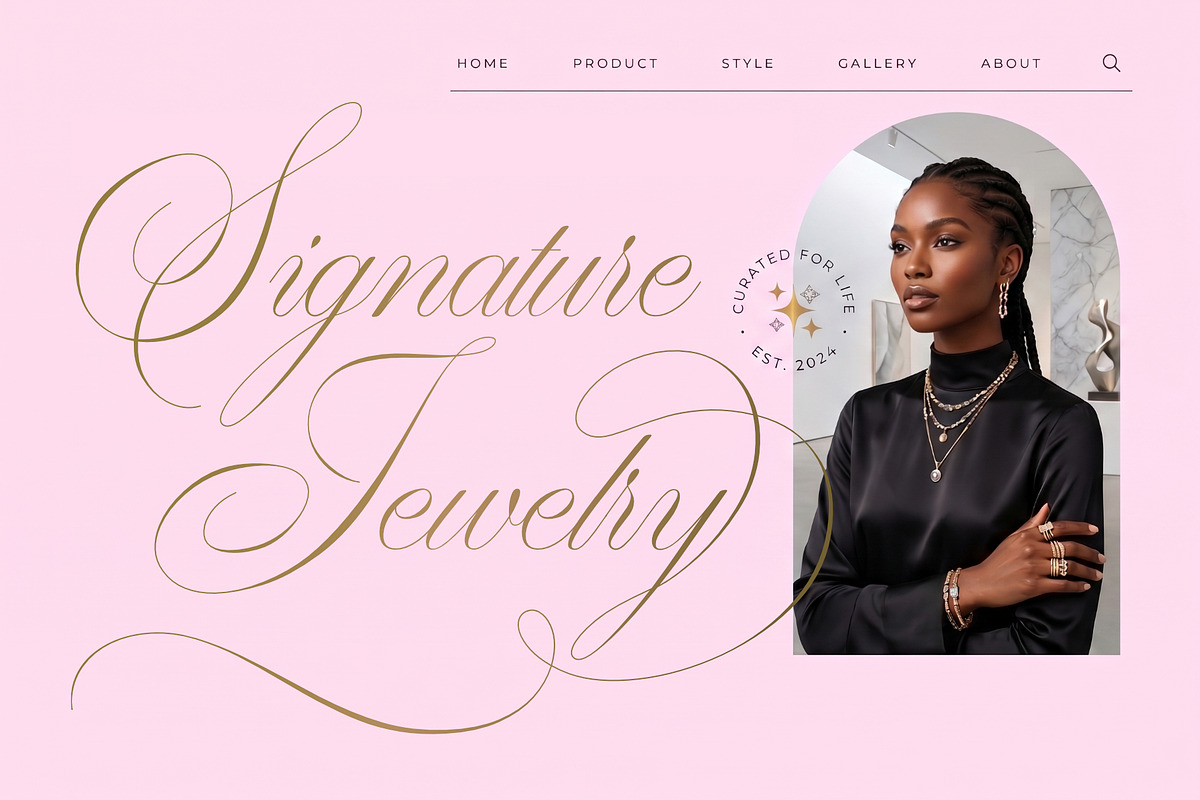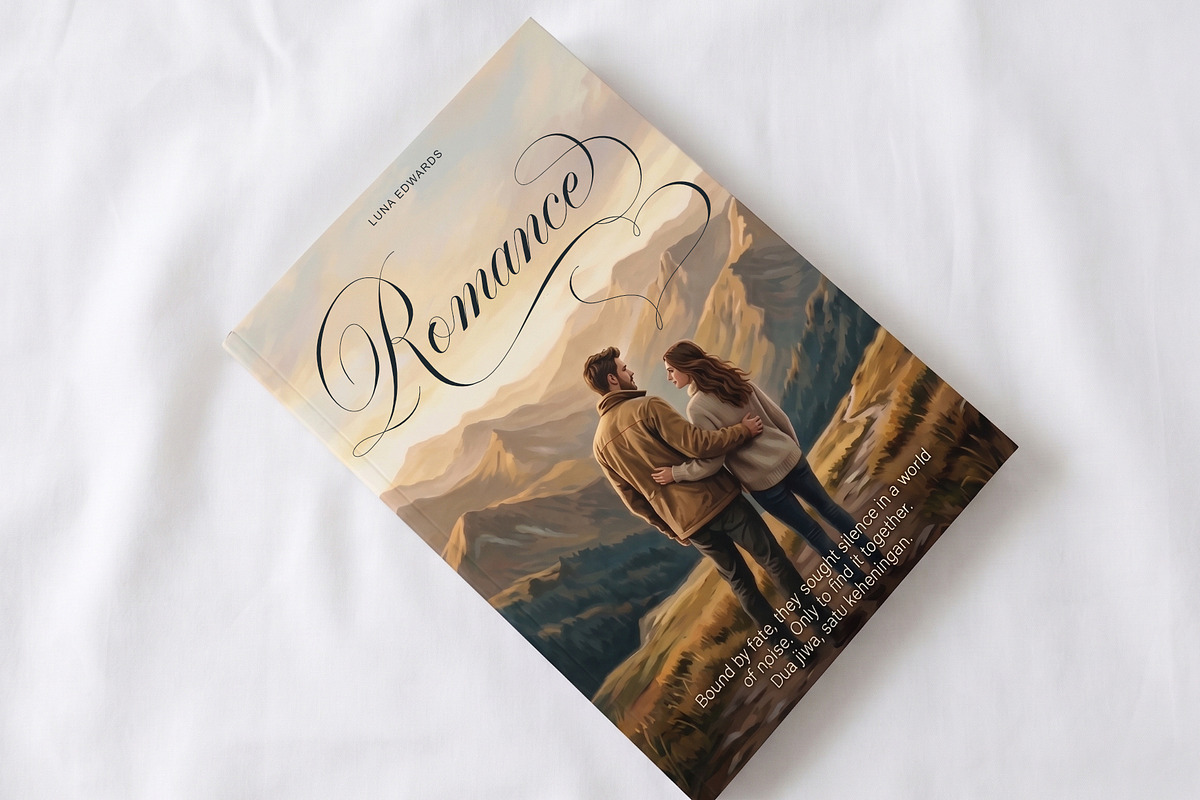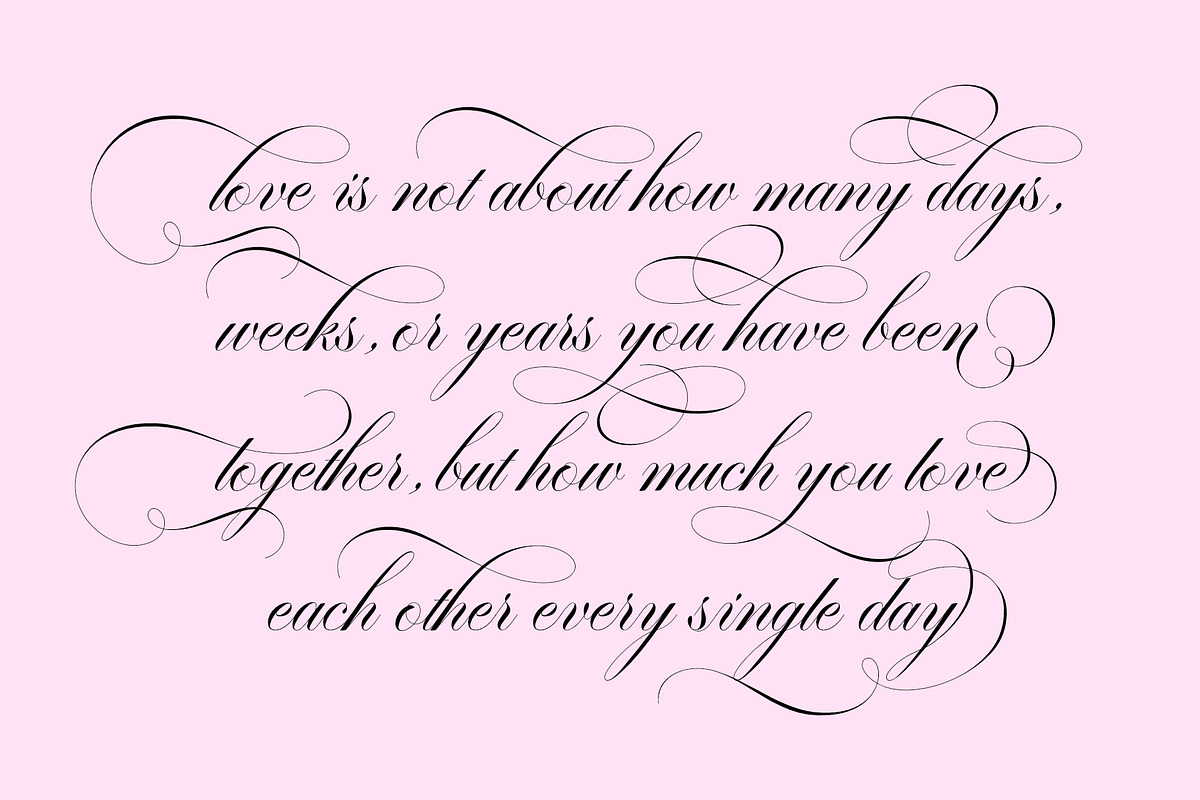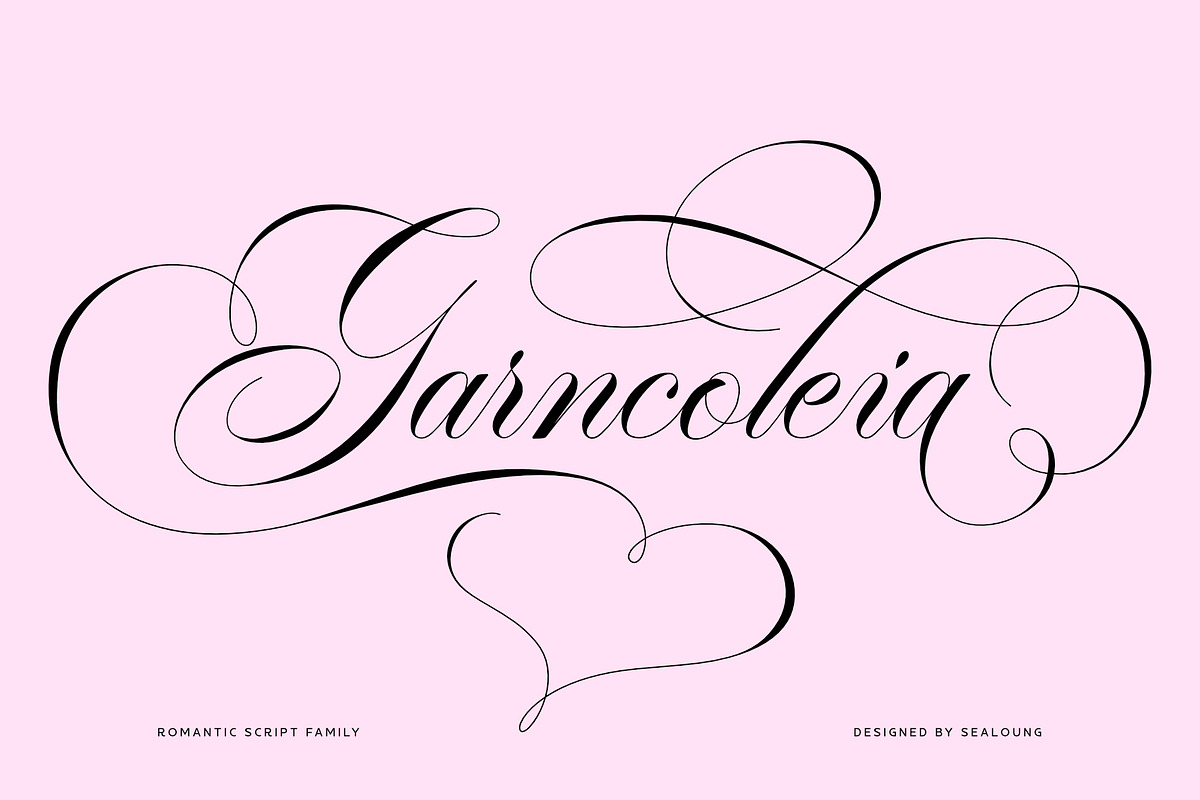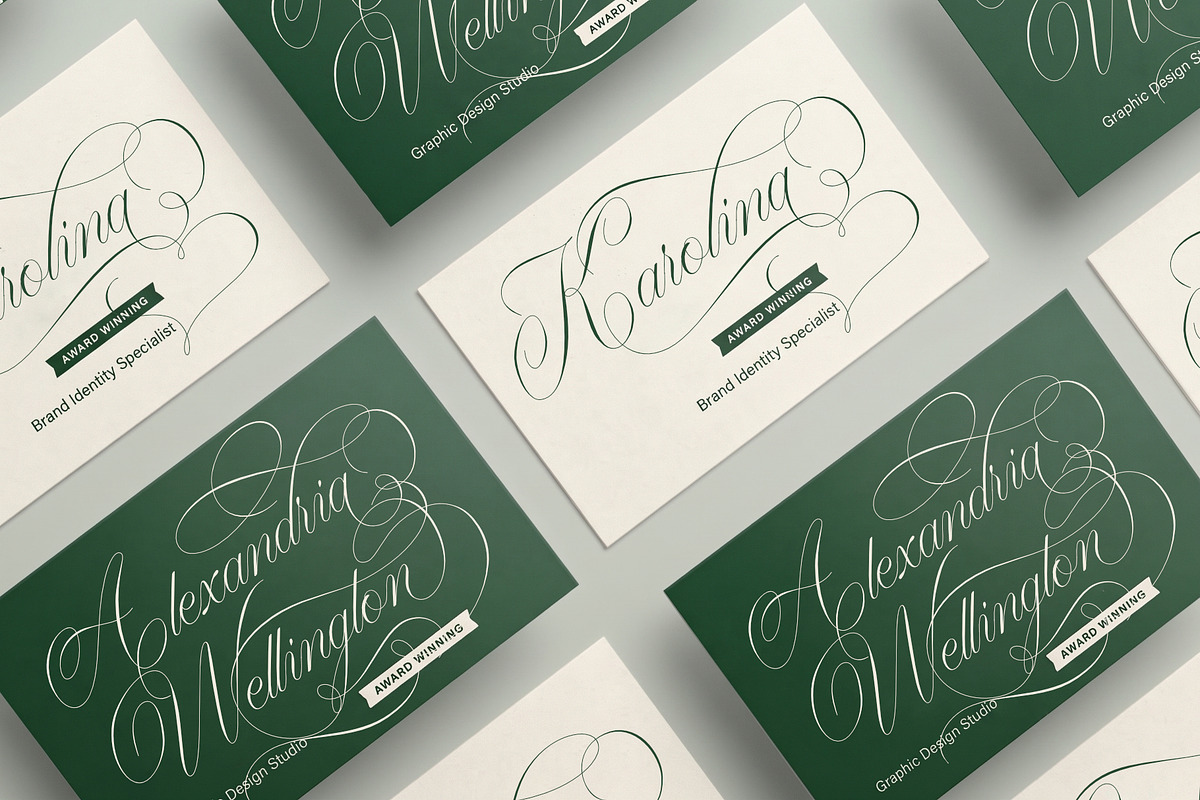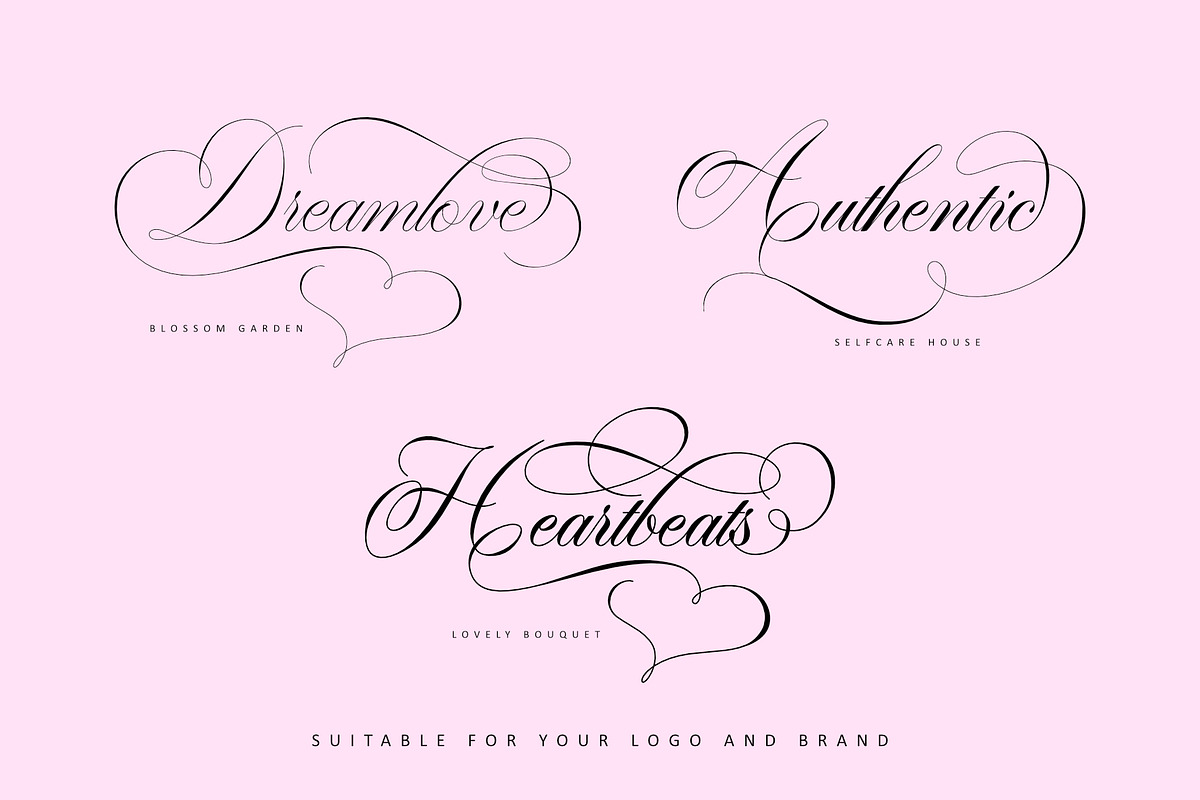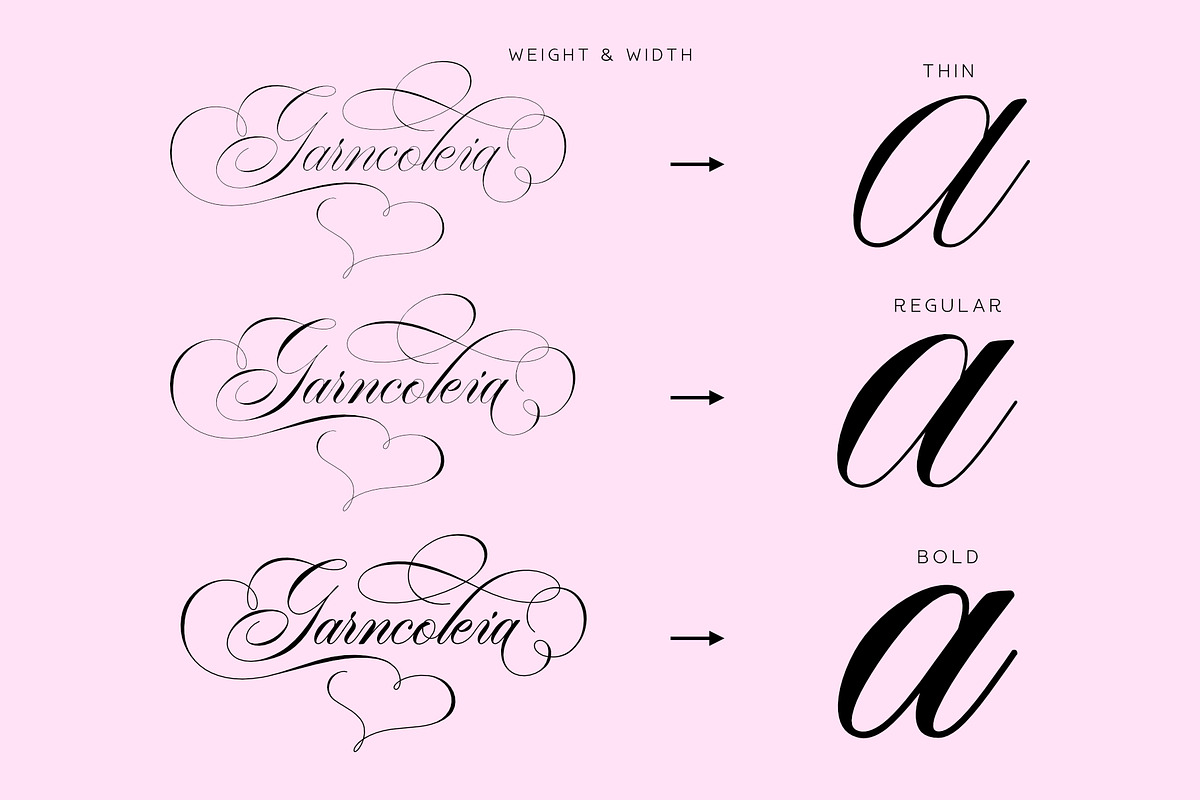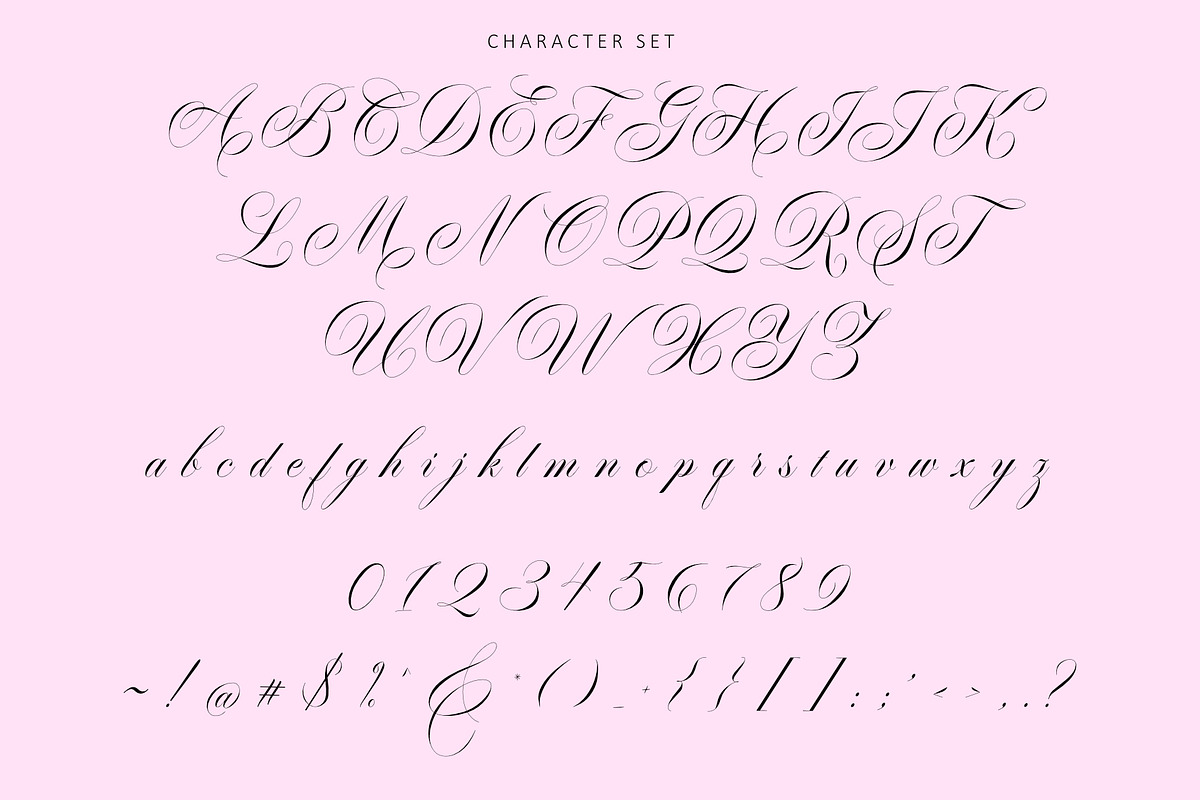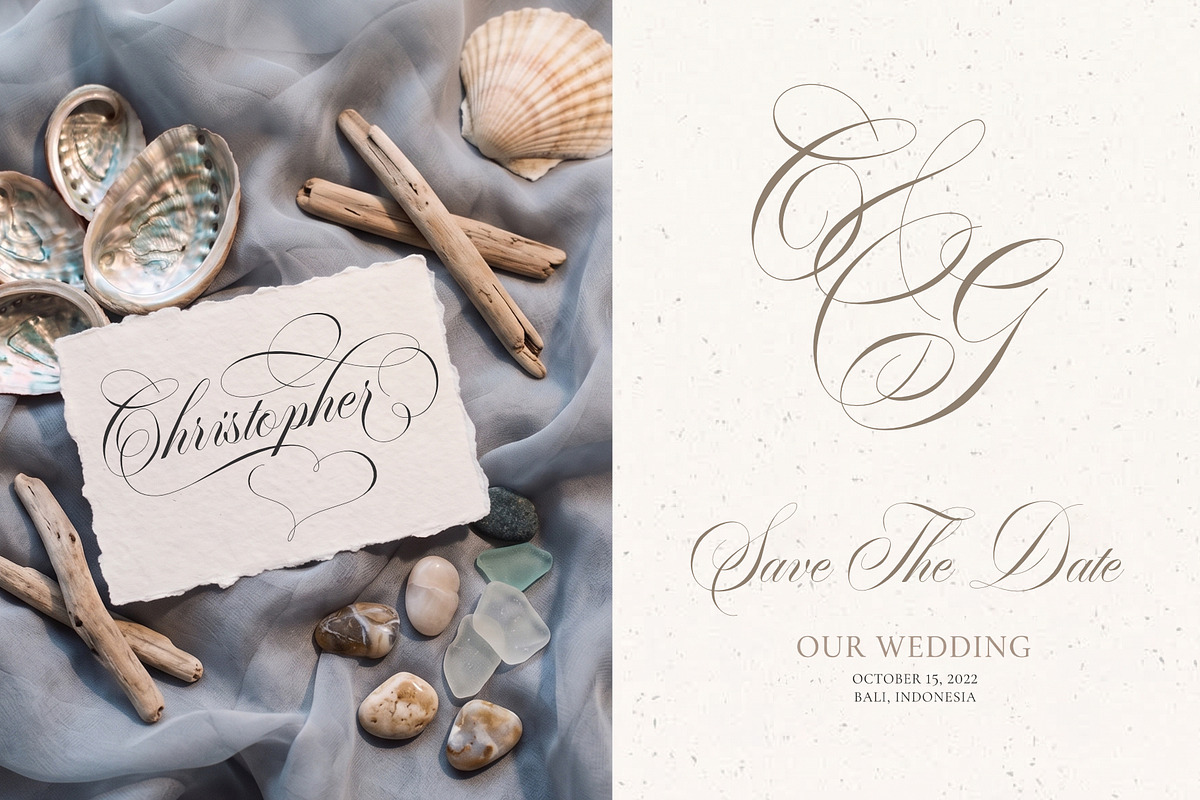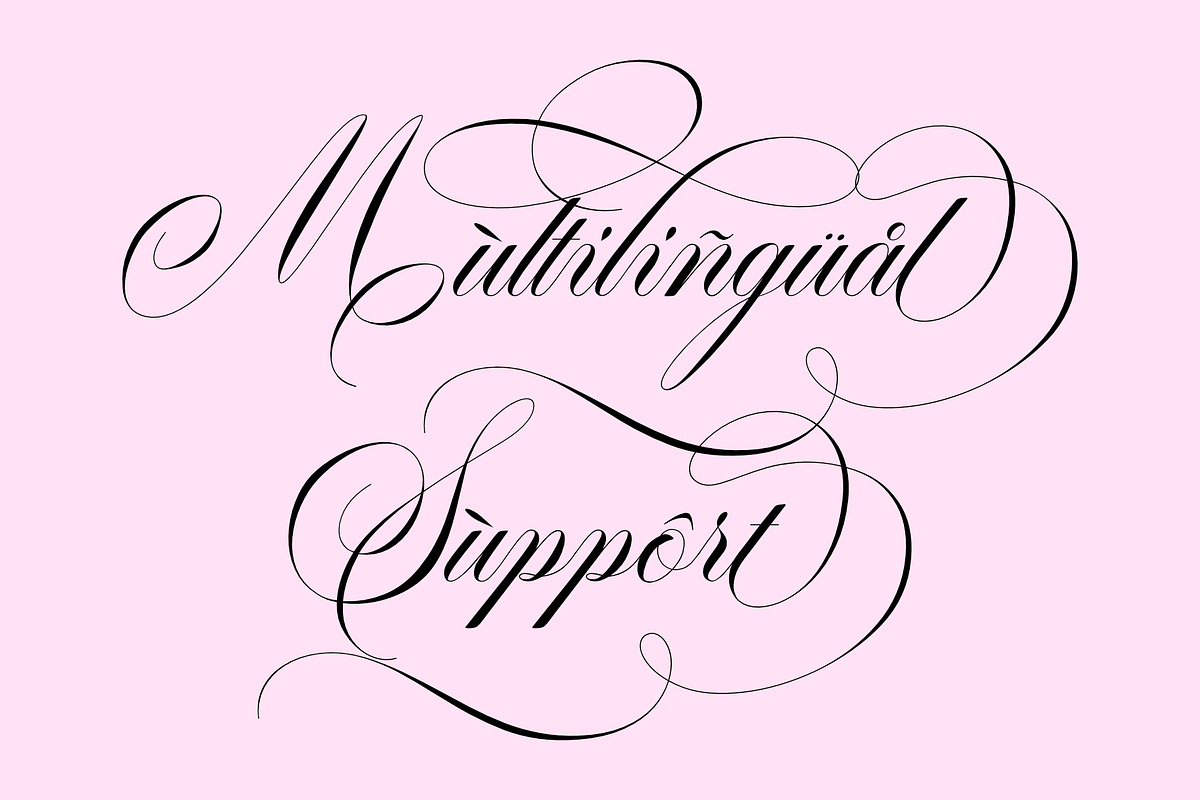
Garncoleia - Romantic Script Family
Garncoleia is a refined and graceful script font that seamlessly combines the classic beauty of traditional copperplate calligraphy with a contemporary, modern feel. Carefully crafted with great attention to detail, this typeface exudes elegance and sophistication making it a perfect choice for designs that require a luxurious and stylish touch.
With its smooth flow, clean structure, and feminine character, Garncoleia offers excellent readability while maintaining artistic charm. It features beautiful letter connections along with a rich selection of alternate characters, allowing for highly expressive and customized typography. This versatility makes it suitable for a wide range of uses, such as wedding invitations, branding, logos, restaurant menus, fashion editorials, beauty packaging, greeting cards, stationery, book covers, magazines, and promotional materials.
Uppercase & lowercase characters
Stylistic alternates